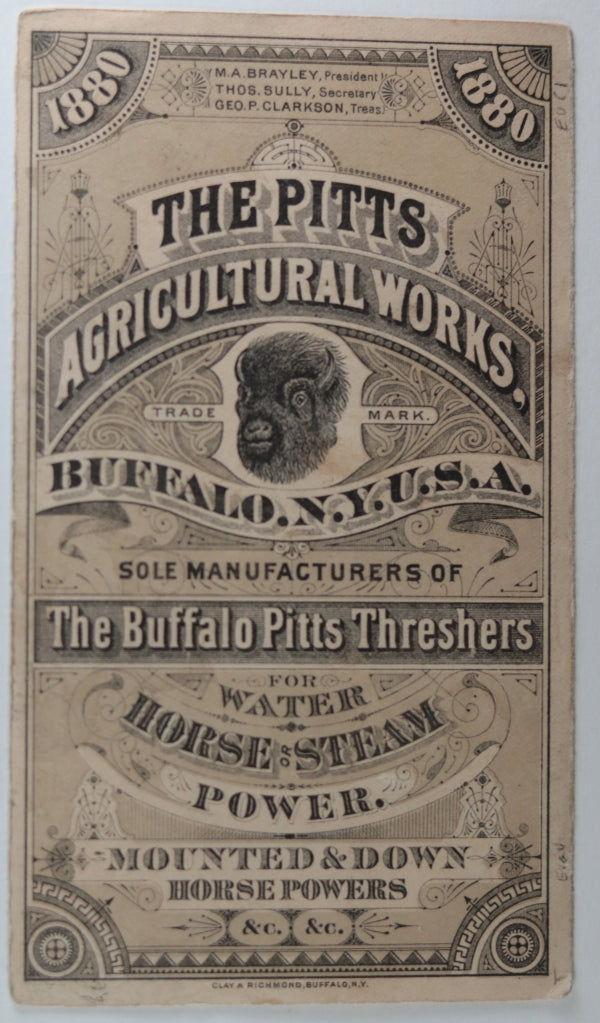
Font help! Old school and cool!
Beats me, but at least you're not trying to match all the fonts in one of their other advertising flyers:
There's about 10 different fonts here...
Yet they somehow make it work. I like it, screw the rules.
Oh yeah, no doubt that the look works for the time. It reads almost like a showman spieling their wares. Slap something together with more modern fonts and it's just exhausting, but this is beautiful. Plus all the ornate line work giving off a dollar bill appearance. You could tell they didn't have sh*t to do back then, because this trading card is so ornate it has what we would call today 'rewatchability.'
I think I'll just look for regular fonts then make them into stencil fonts...it wouldn't be the first time I had to do that o_O
How old is that sign, Stacey? If I had to take a wild guess, I'd say it was probably made in the early 1900s. Obviously the sign was hand lettered by a sign painter from that time period and most likely either copied the fonts he used from other sign painters or, he might've made up his own fonts and made a stencil. Unless you had access to a printing press back then, you didn't have the luxury of legit fonts but you could always copy them as best you could freehand style off of newspapers, magazines, flyers and Wanted posters :).
I just read his email again, it's 110 years old and it holds 'family history'. He wants to replicate the sign himself but wanted to know his options for the lettering. Of course I suggested a stencil! He did trace the wording so I might try and use that and clean up the letters. I was hoping to find a similar font I could use as a starting point but I'll probably just need to clean his letters up.
How did I do it? Is that the question?
yah, how in the heck did you do it? I would assume you used some sort of ai, but The text... it's fricken dead on and there are no extra letters.
At first I thought you had your own sign just like the one in Stacey's photo, but I can tell that is Stacey's photo.
I'm impressed!
Color me impressed as well, though I feel like this is the magic eraser tool for photoshop removing 'blemishes' or something.
The magic eraser is pretty cool, but it's not this good. Even the knots in the wood match. I was a photo editor for about 20 years, and I can't figure out how this was done. C'mon Gary, spill!
Gemini. It read the wording and restored the lettering in a jif. It also gave me some historical info on the company on the sign board. This ai stuff is crazy.